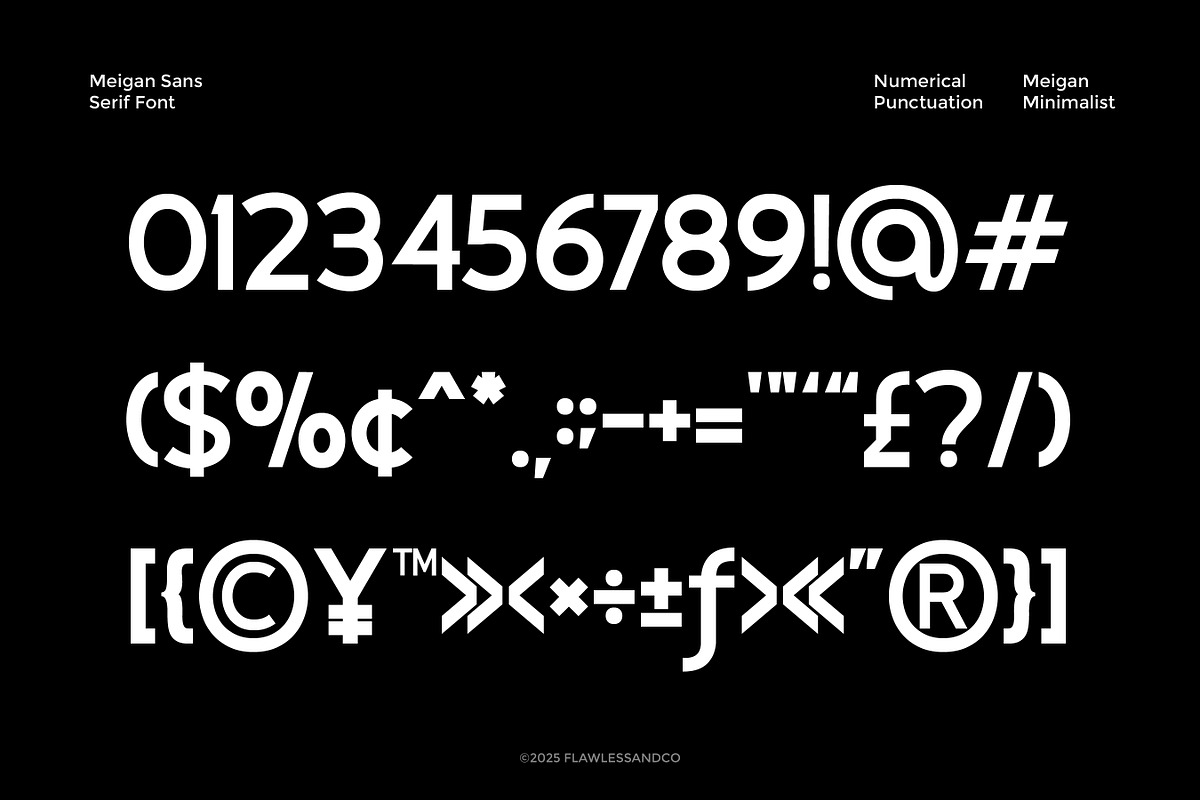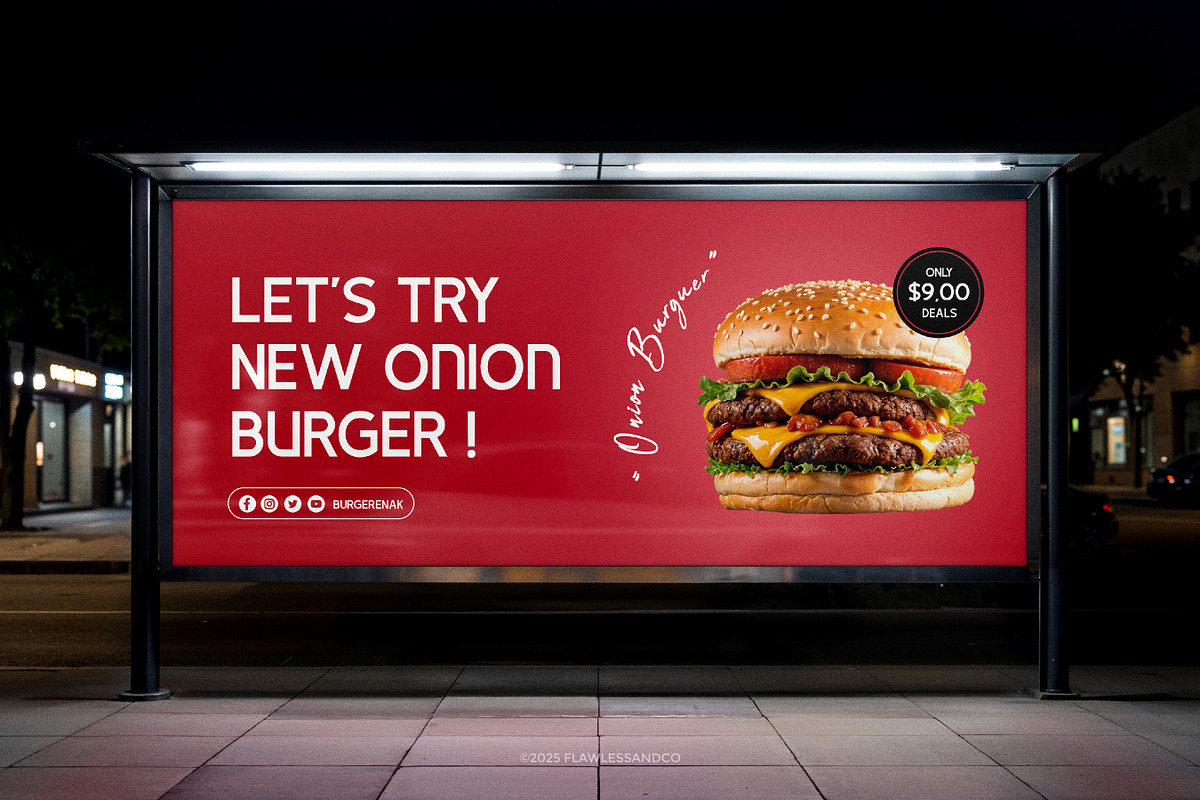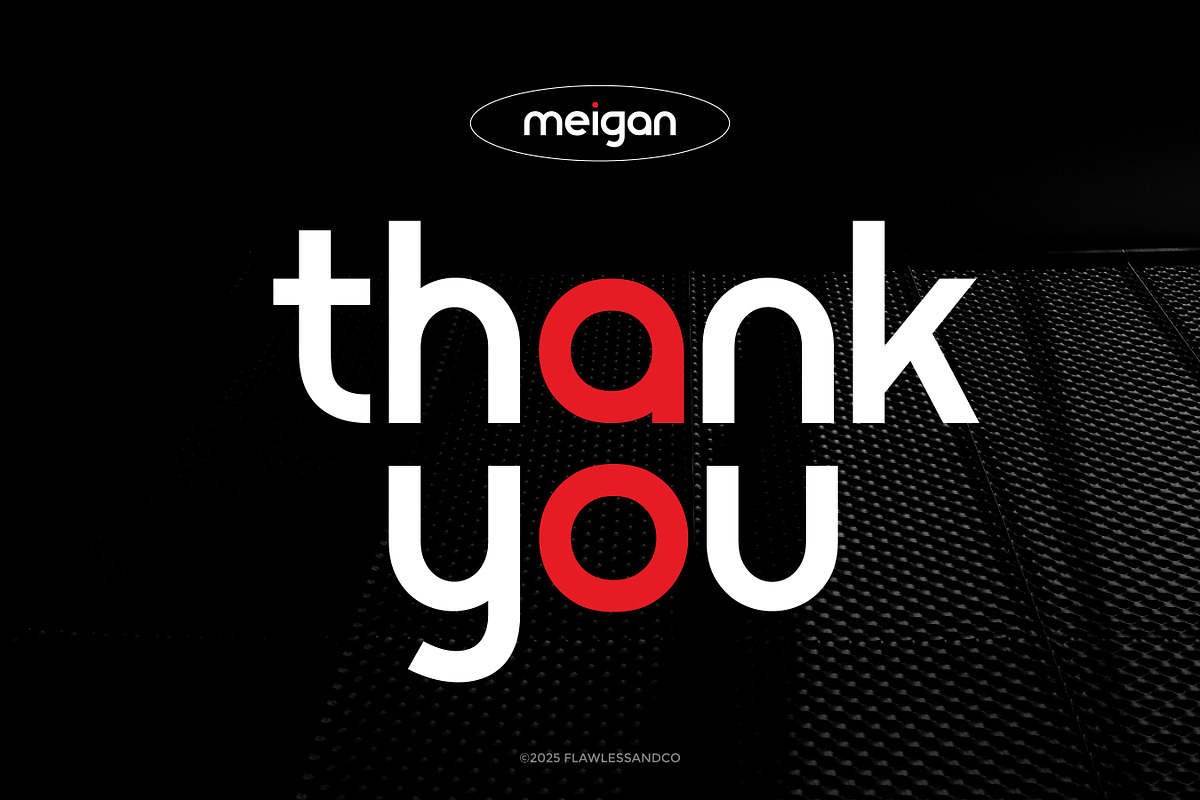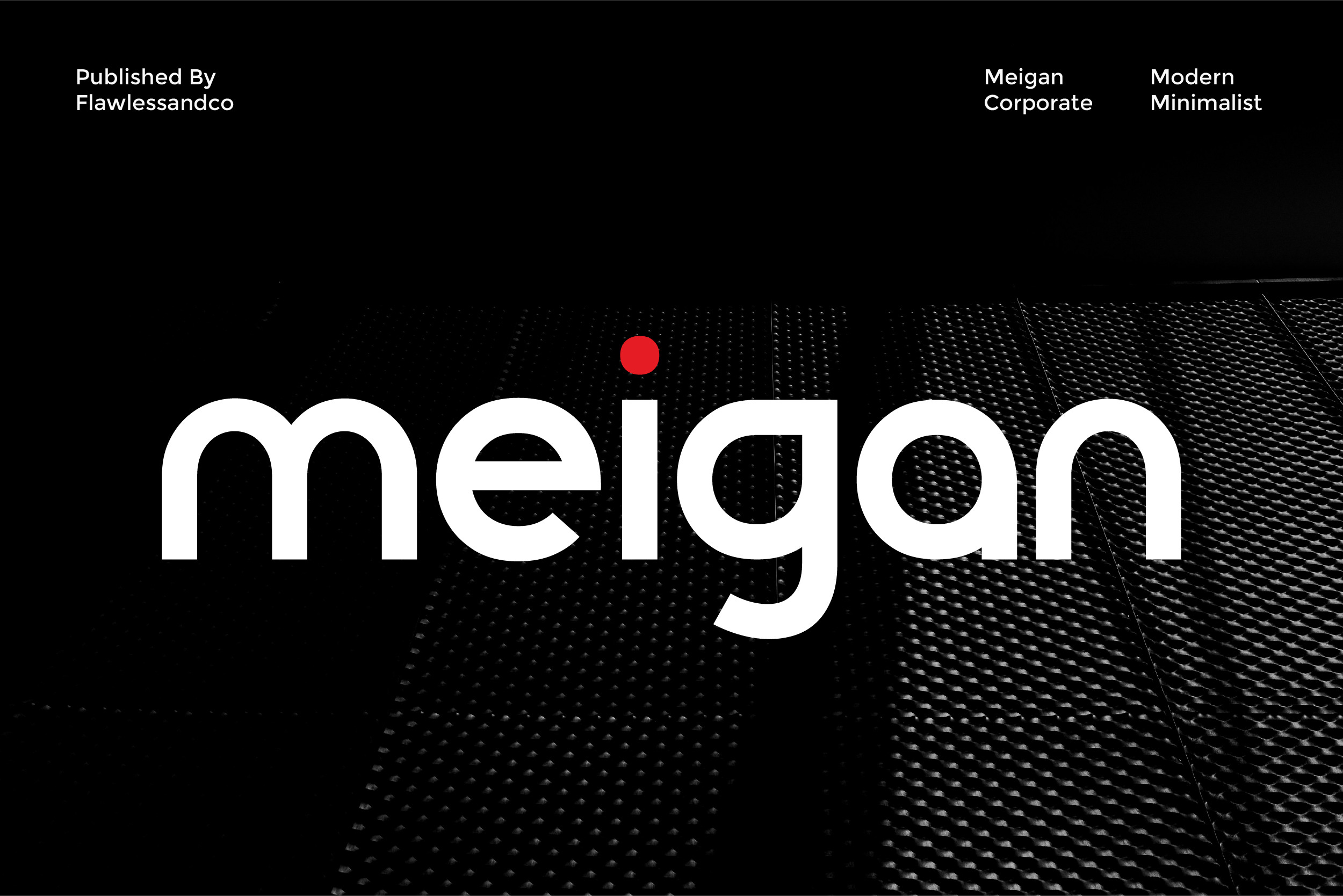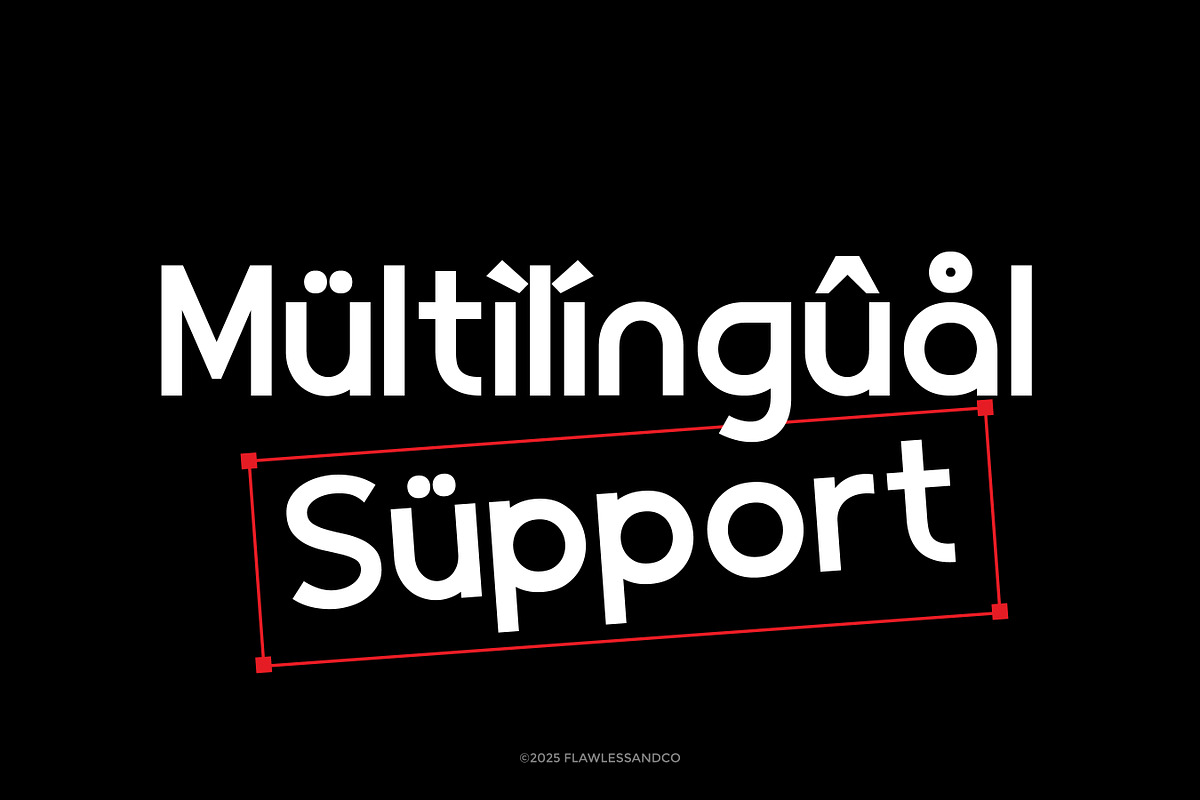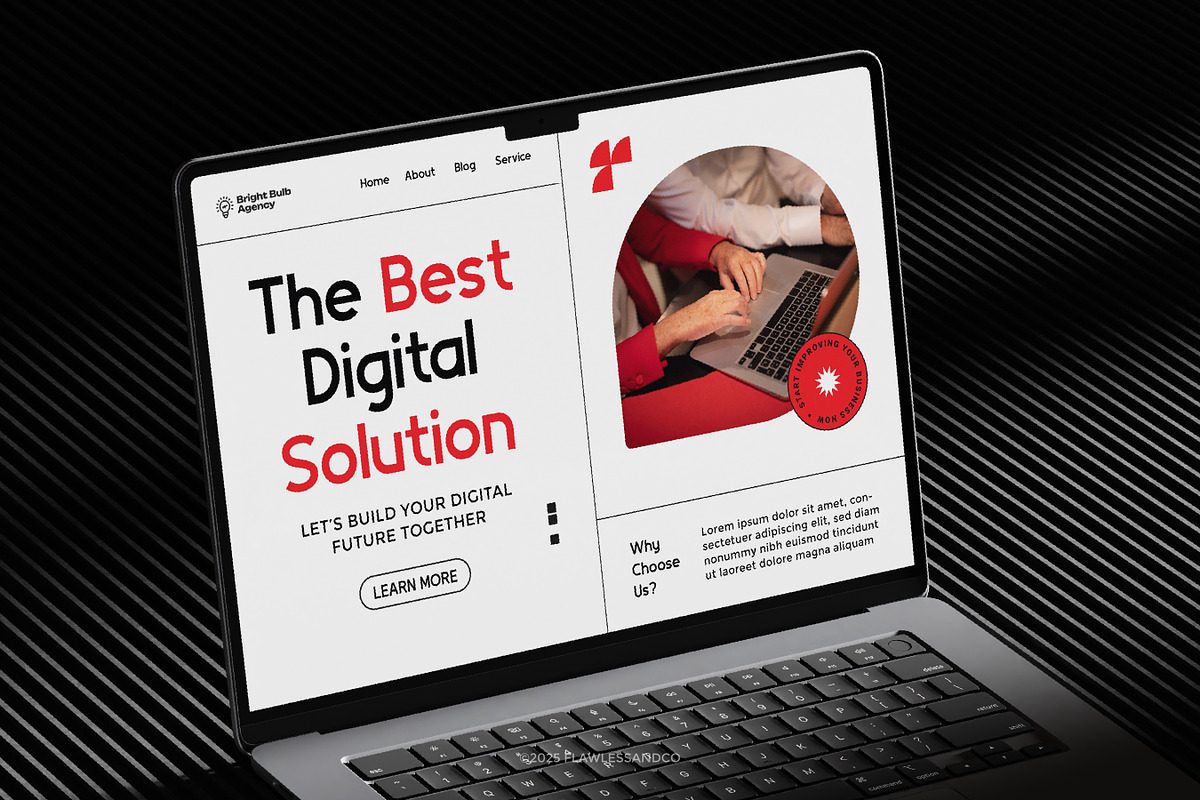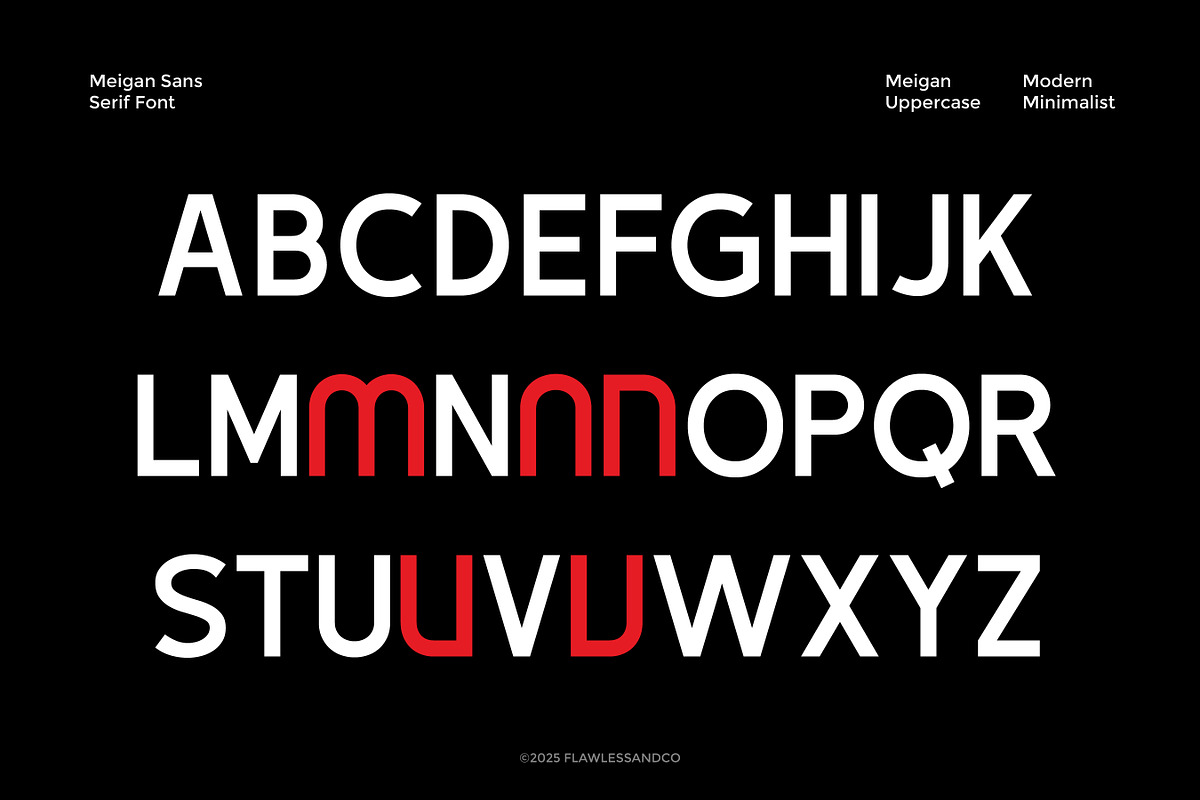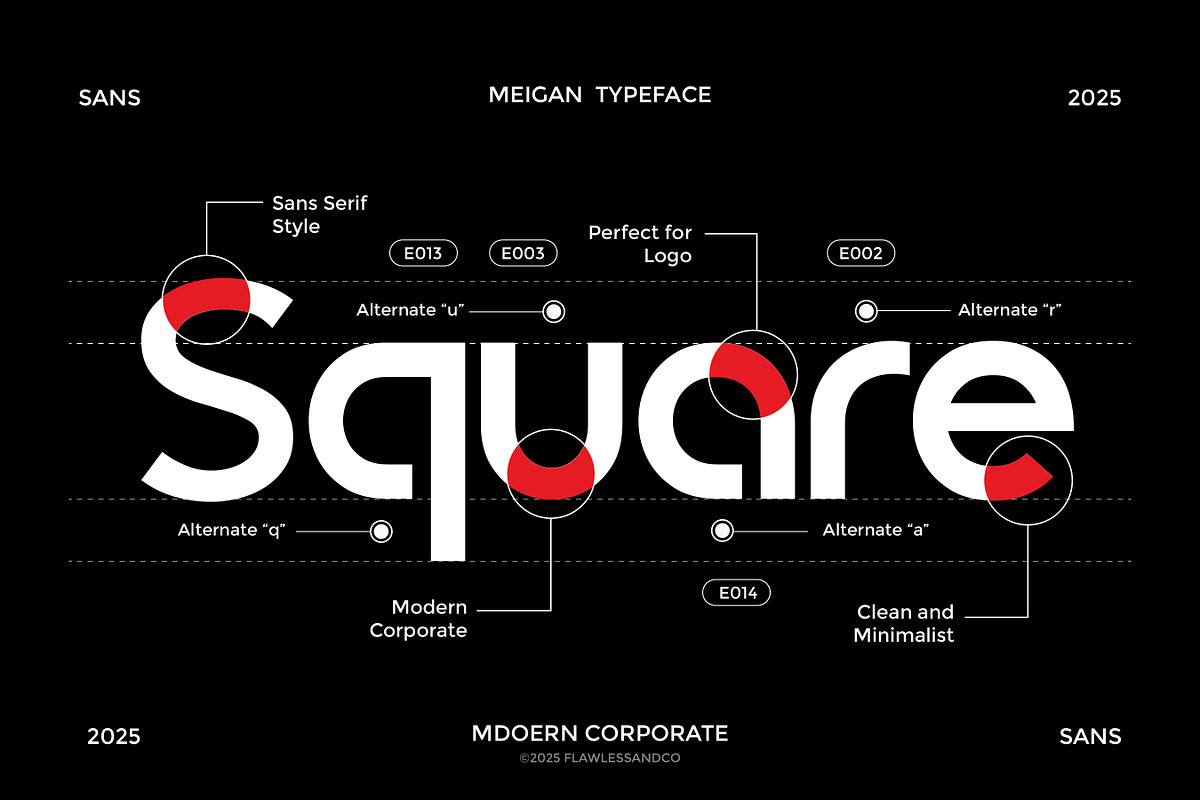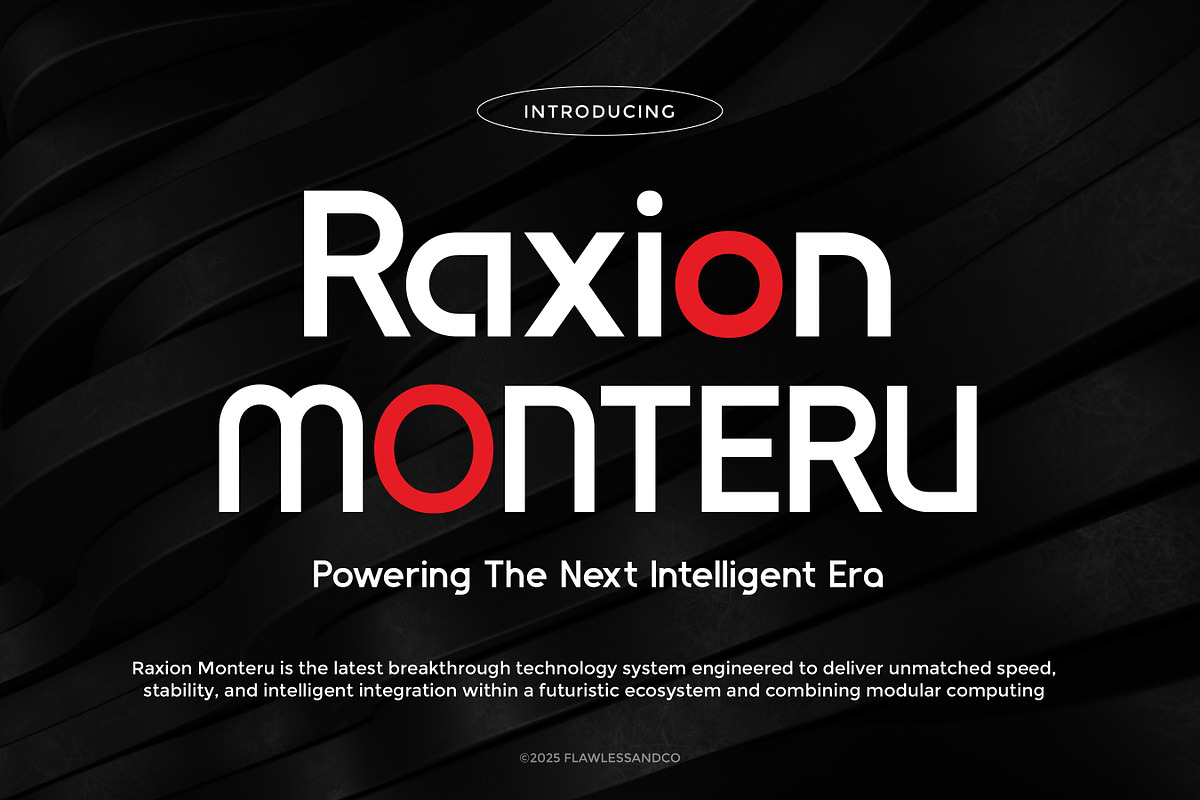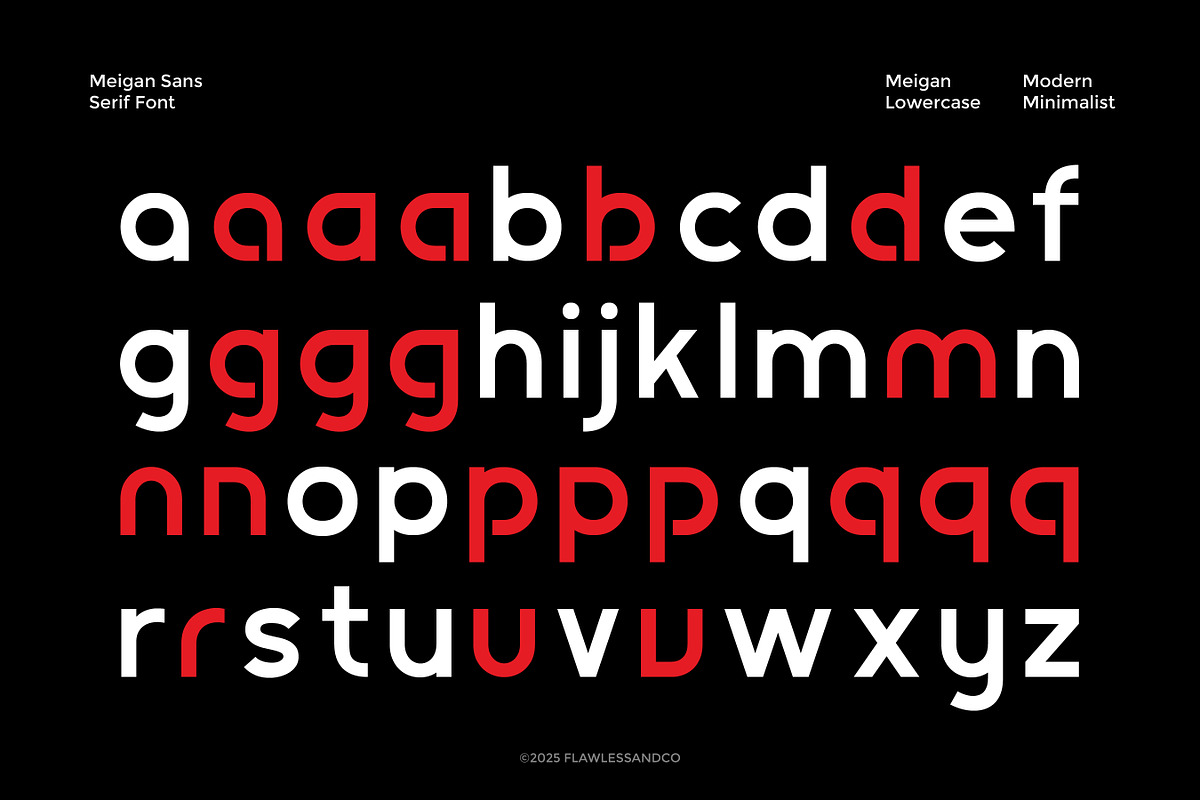
Meigan - Modern Corporate Sans Font
Meigan - Modern Corporate Sans Serif Font
Meigan is a modern corporate sans serif font crafted to deliver a minimalist, professional, and contemporary visual identity. Designed with clean lines, balanced spacing, and minimalist geometric forms, Meigan offers excellent readability while maintaining a strong modern character. Its versatile and polished appearance makes it suitable for a wide range of professional design needs, from corporate branding to digital interfaces. Combining simplicity with sophistication, Meigan creates a confident and reliable impression that fits perfectly in modern business environments.
Alternates & Ligatures
Who Should Use Meigan?
Meigan is perfect for companies, startups, agencies, and designers who need a modern sans serif typeface with a clean corporate aesthetic. It’s ideal for professional branding projects that require clarity, structure, and a refined contemporary style.
Suitable For:
Corporate identity and branding
Business presentations and reports
Technology and startup logos
Website headers and UI design
Editorial and modern layouts
Advertising and marketing materials
Social media business content
Professional packaging and product design